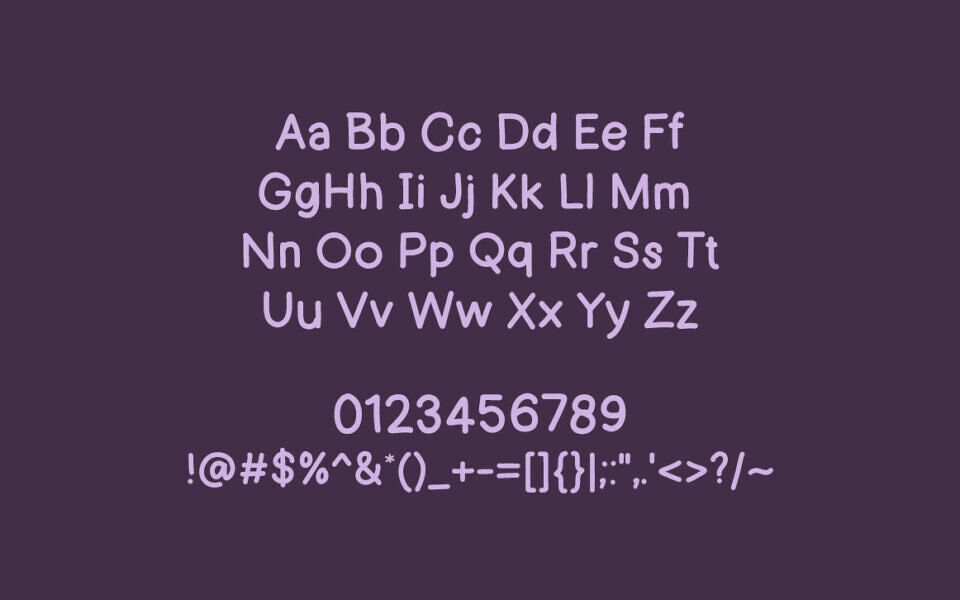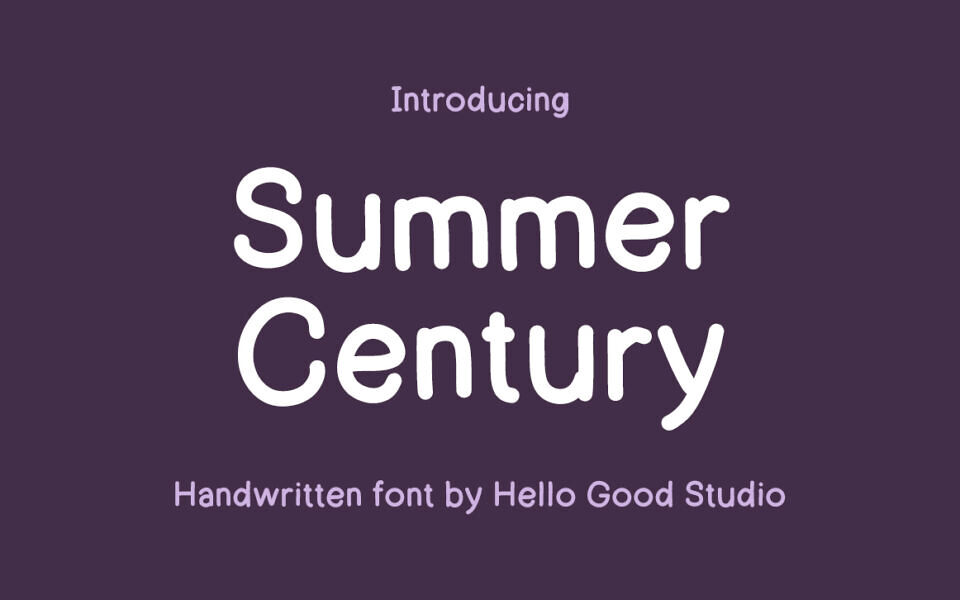
Summer Century is a cheerful, handwritten calligraphy-style font by Studio Hello Good. It features smooth, rounded strokes and a playful yet polished personality, making it ideal for warm, friendly designs—think kids’ branding, casual logos, comic book titles, or monogrammed apparel.
With a full set of 137 glyphs supporting around 200 characters, it’s versatile enough for headlines, social media posts, invitations, and more.